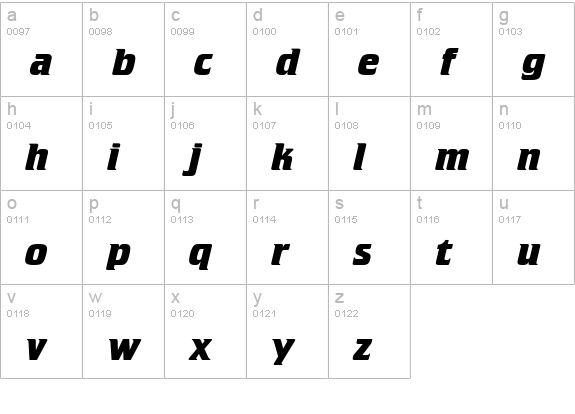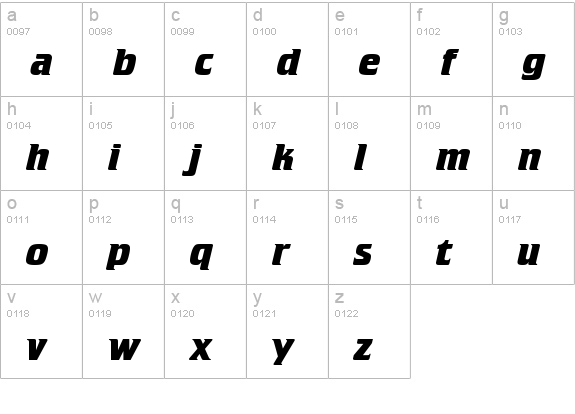
Crillee Bold Italic Plain is a strong, high-contrast, italic variant in the Crillee typeface family \xE2\x80\x94 well suited to headlines, attention-grabbing titles, and strong calls-to-action.
Crillee Bold Italic Plain font is a stylish and eye-catching typeface that exudes confidence and sophistication. Its bold and italic design adds a touch of flair to any project, making it perfect for headlines, titles, and branding materials. The strong strokes and unique curves of Crillee Bold Italic Plain font demand attention and create a lasting impression on the viewer. This versatile font is ideal for a wide range of design projects, from posters and advertisements to packaging and logos. Its bold and italic styling adds a modern twist to traditional typography, making it a standout choice for designers looking to make a statement. And the best part? Crillee Bold Italic Plain font is available for free download at FontsMarket.com. Now you can add this striking typeface to your font collection without breaking the bank. Don't miss out on the opportunity to enhance your designs with the bold and dynamic look of Crillee Bold Italic Plain font. Download it today and take your projects to the next level!